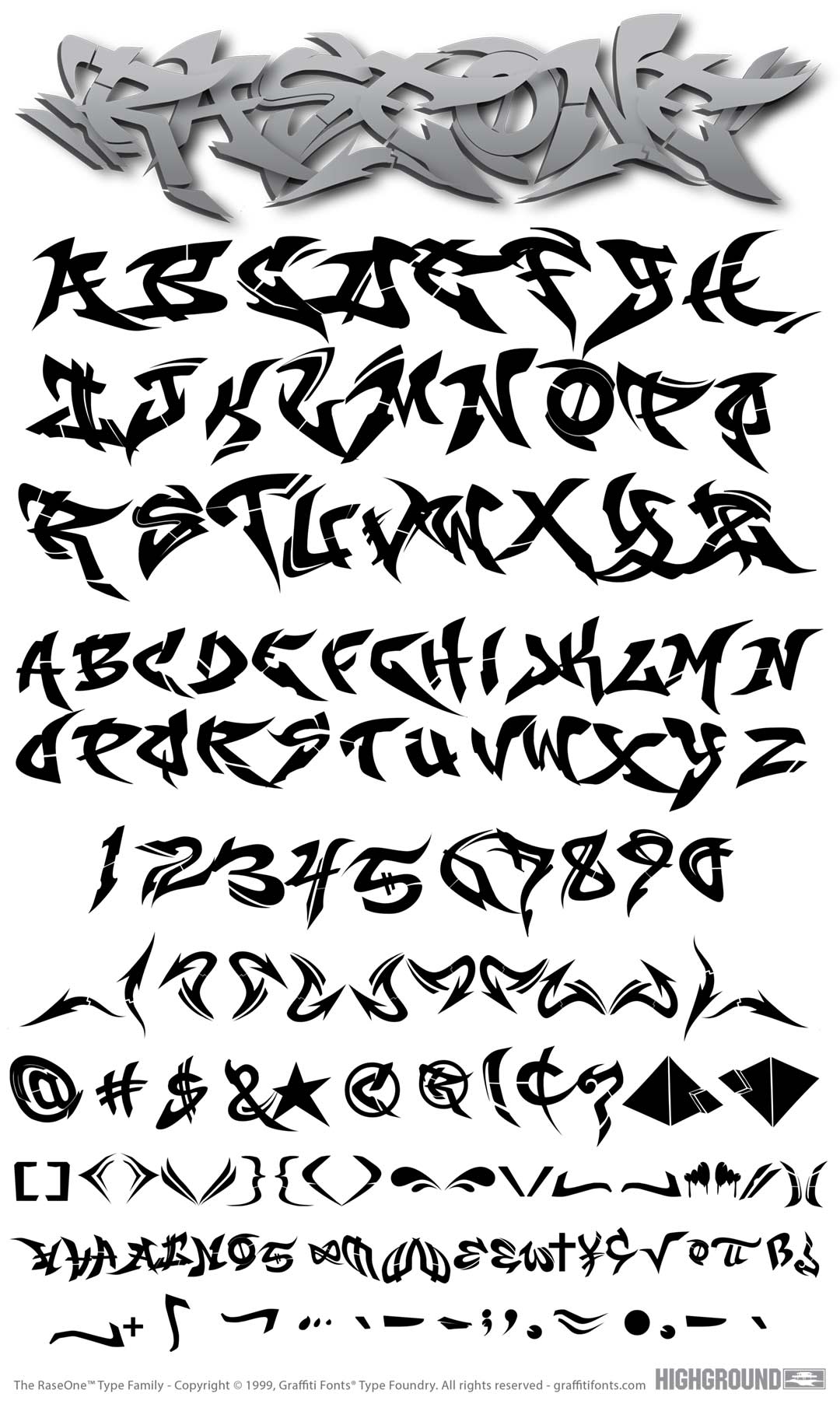
RaseOne Original Font
RaseOne Original Title Image
RaseOne Original Graffiti Alphabet
RaseOne Original Graffiti Font Family
The Original RaseOne typeface was developed in 1999 and released in 2001 as one of the first graffiti style fonts ever. The font contains 255 letters, numbers, symbols & flourishes.